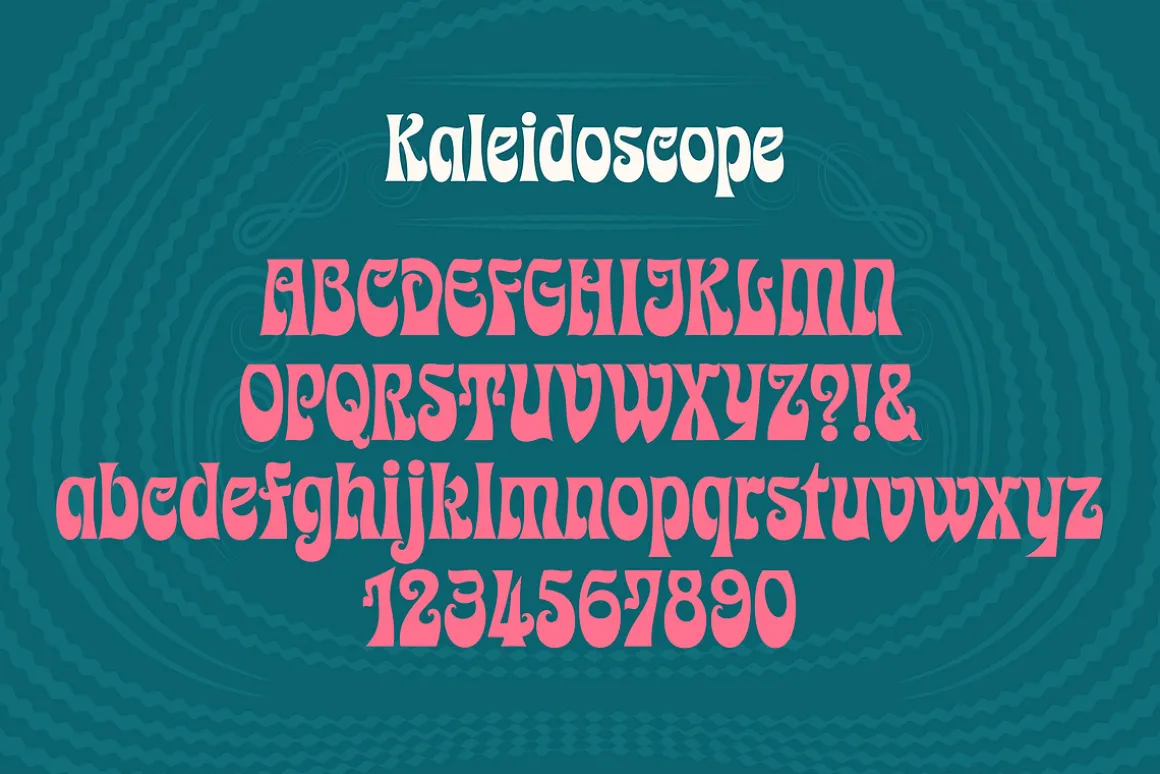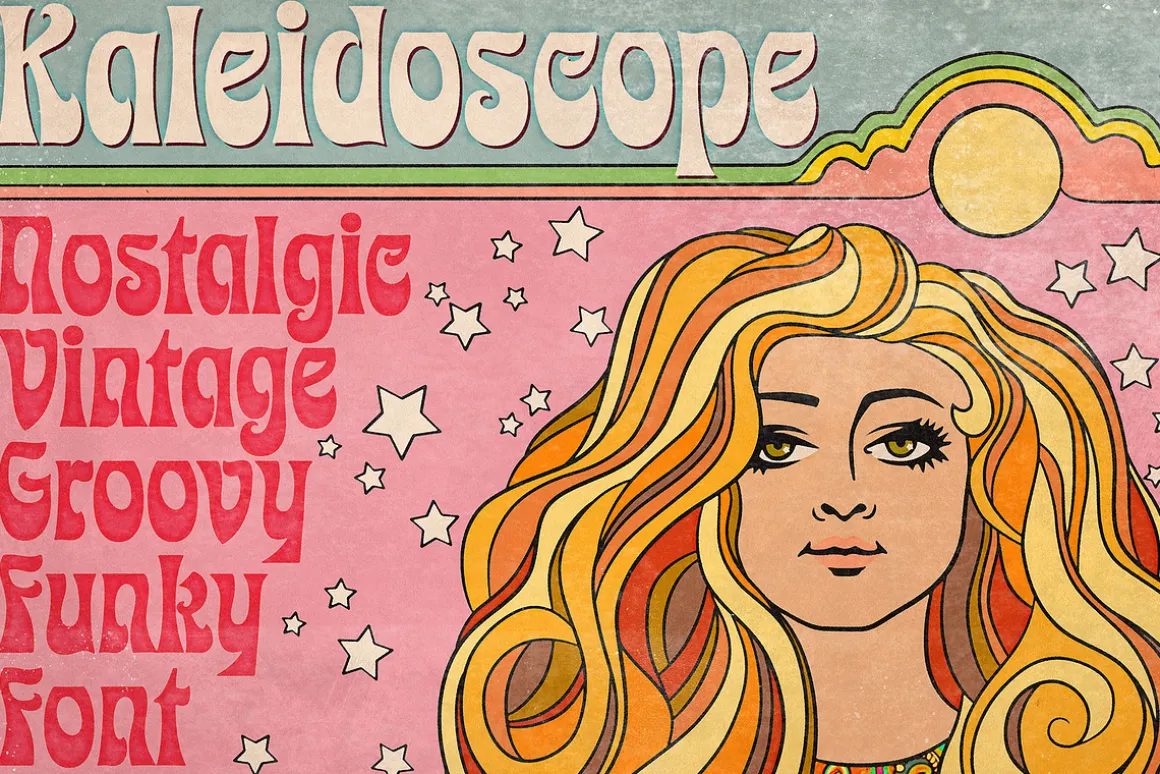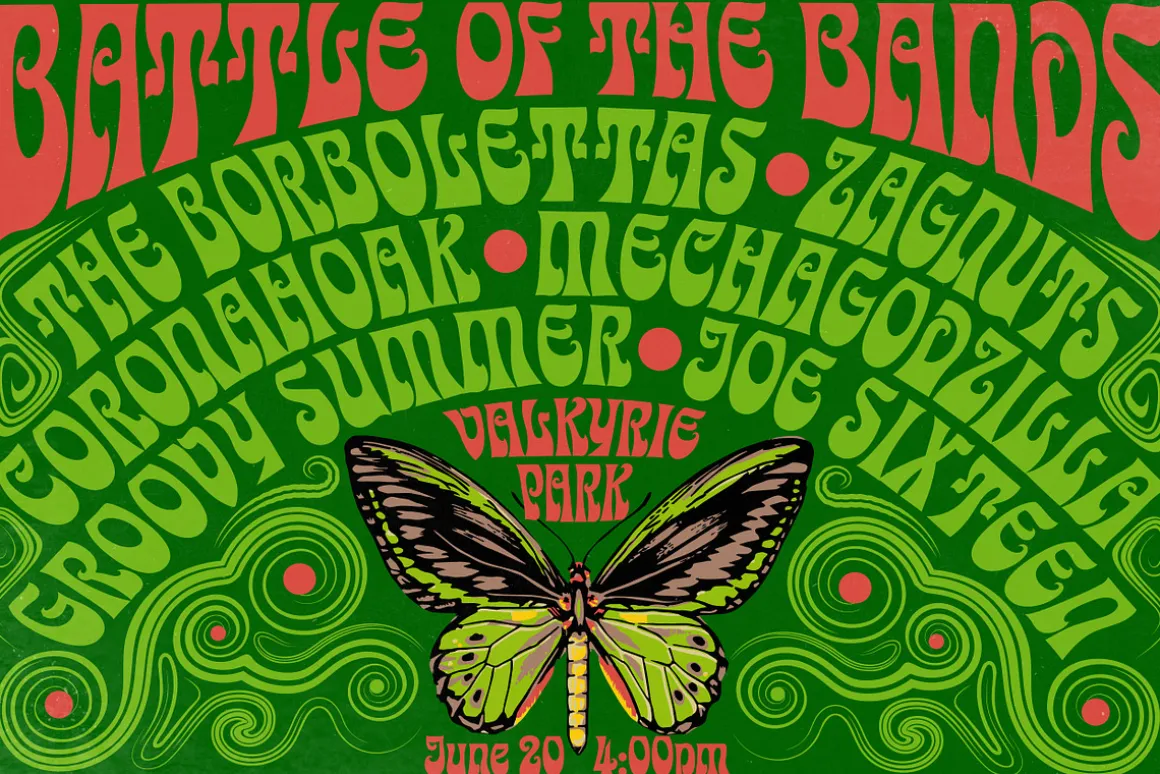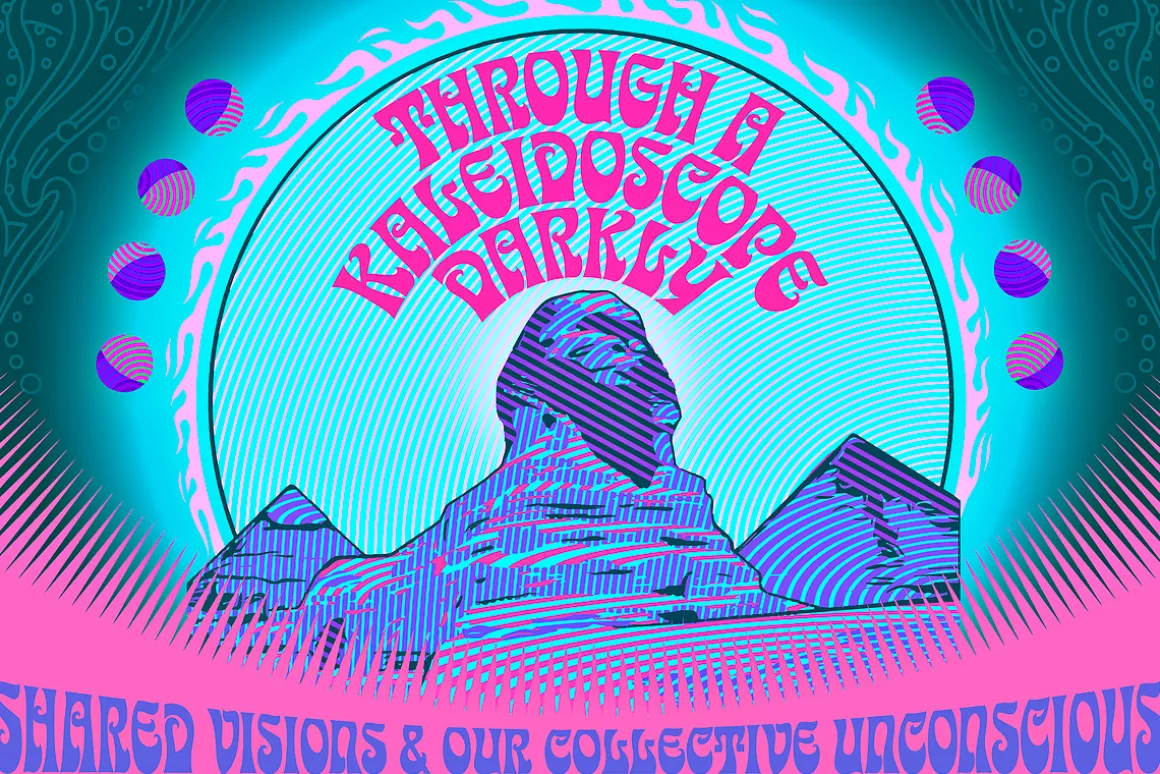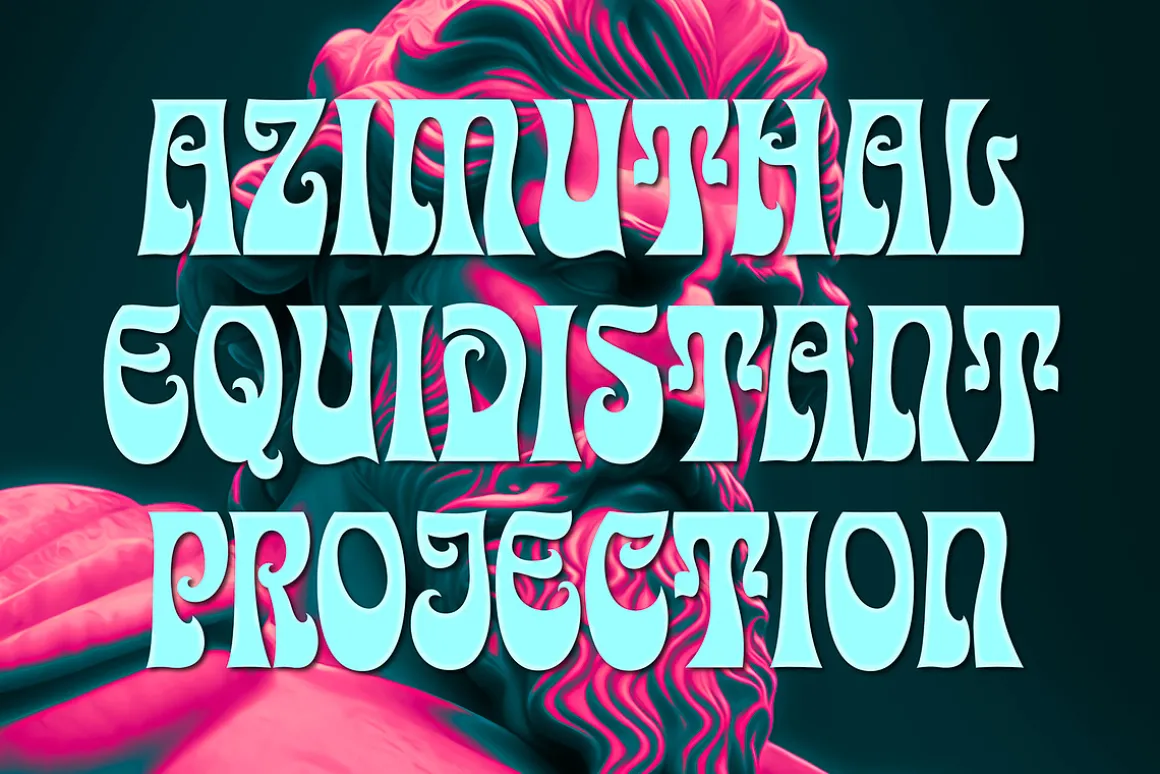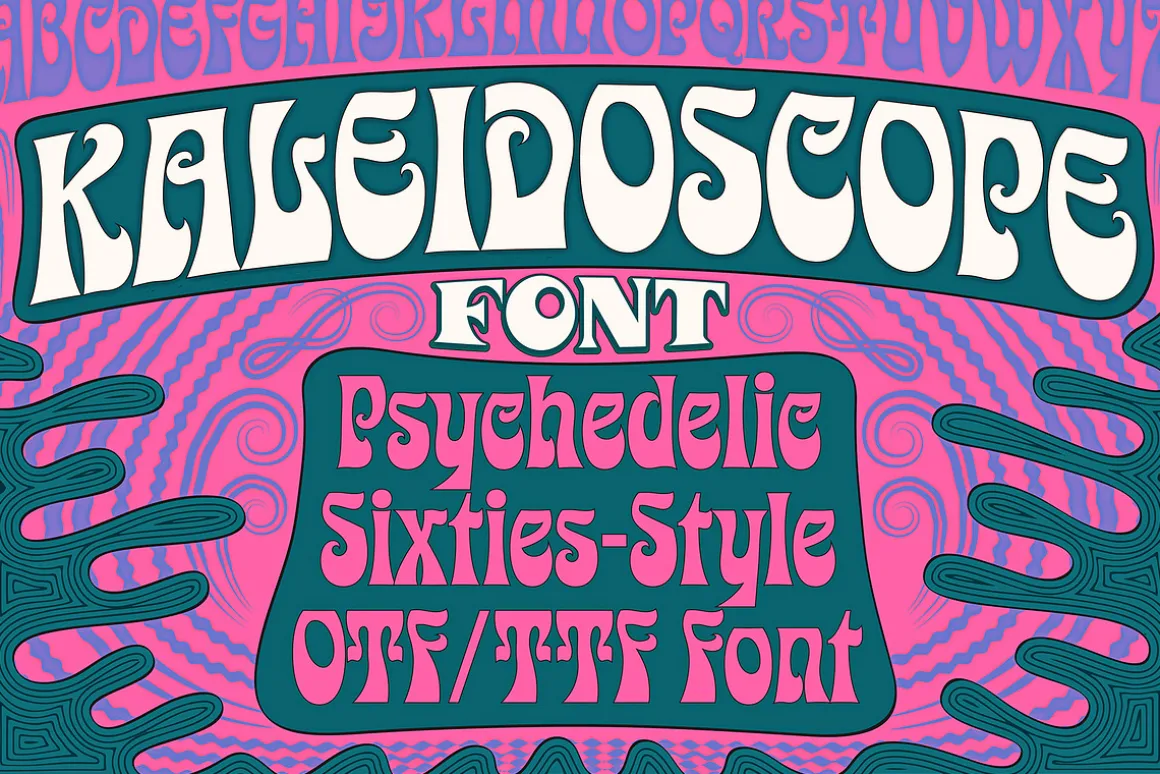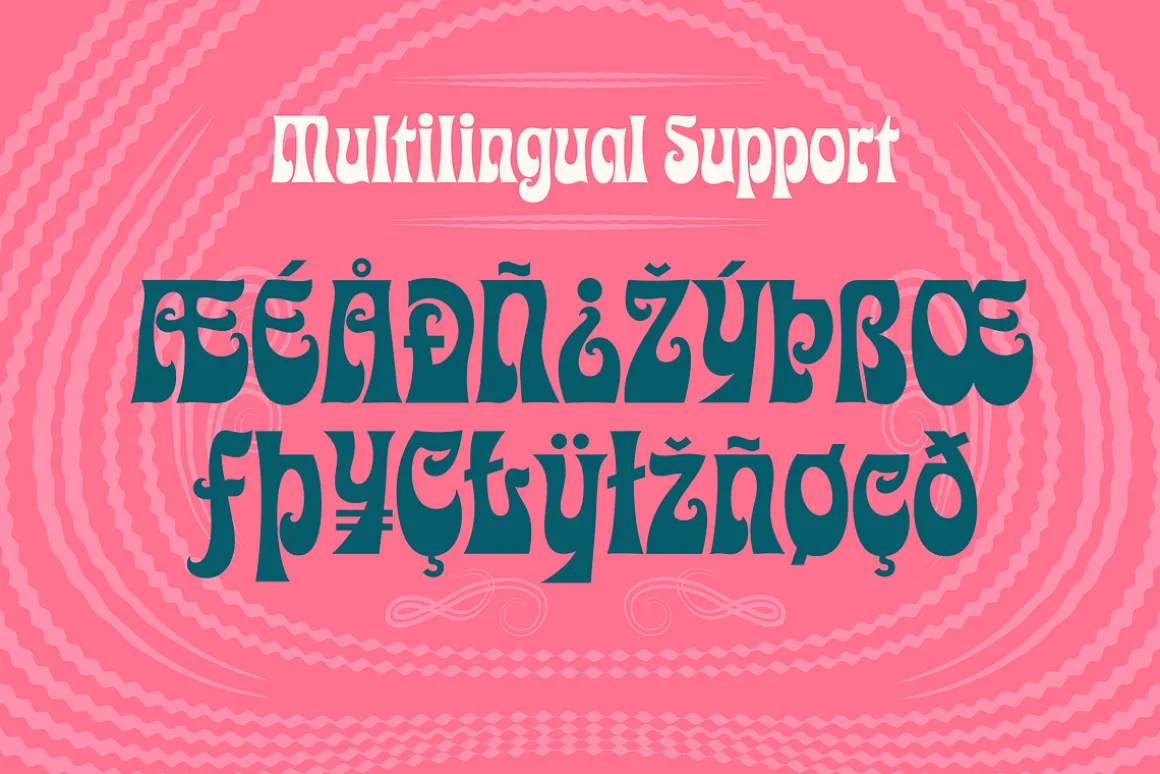
Kaleidoscope is a groovy retro font with roots in the Art Nouveau movement and the psychedelic sixties. Great for trippy band posters, logos, invitations, and anything that needs a flowing funky vibe.